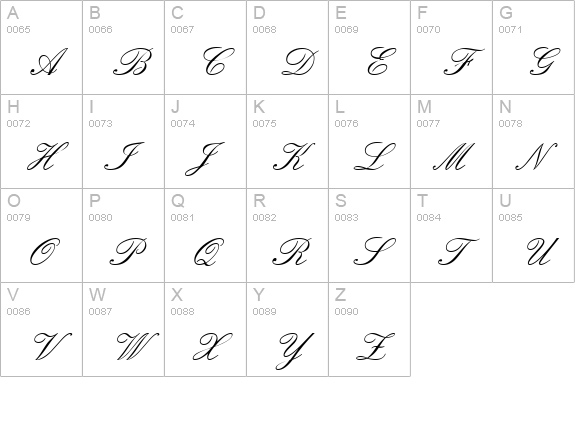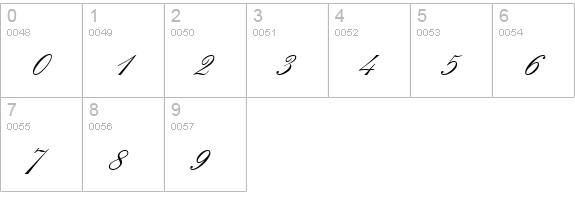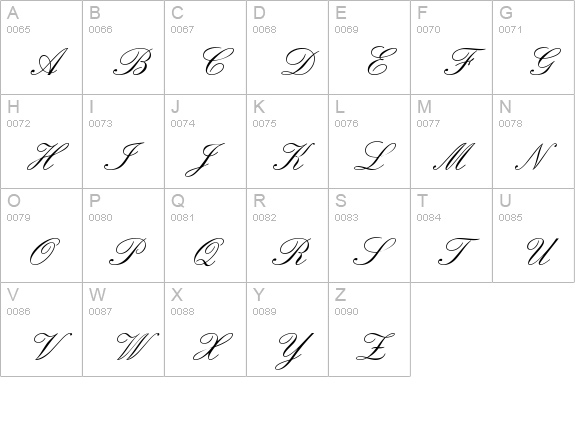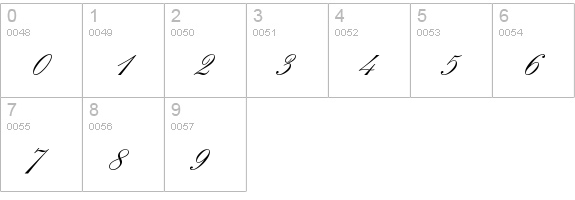
QuadrilleScriptSSK Font Details
QuadrilleScriptSSK font is an exquisite and elegant typeface that brings a touch of sophistication to any project. Its graceful and flowing letterforms are reminiscent of handwritten calligraphy, adding a unique and personal touch to your designs. This font is perfect for any occasion where a touch of elegance is required, such as wedding invitations, formal announcements, or branding materials. Its versatile nature allows it to be used in both digital and print formats, ensuring that your message is conveyed beautifully across all mediums. One of the greatest advantages of QuadrilleScriptSSK font is that it is freely available to download at FontsMarket.com. This means that you can easily access and utilize this stunning font without any cost. Whether you are a professional designer or a casual enthusiast, this font is accessible to all, allowing you to elevate your designs without breaking the bank. With its timeless charm and effortless beauty, QuadrilleScriptSSK font will surely captivate and engage your audience. Its clean lines and elegant curves make it a reliable choice for any project, whether it be a formal invitation or a stylish logo. So why wait? Download QuadrilleScriptSSK font today from FontsMarket.com and unlock the potential to create stunning designs that leave a lasting impression. With its free availability, you have nothing to lose and everything to gain by adding this font to your collection. Explore the possibilities and let your creativity soar with QuadrilleScriptSSK font.